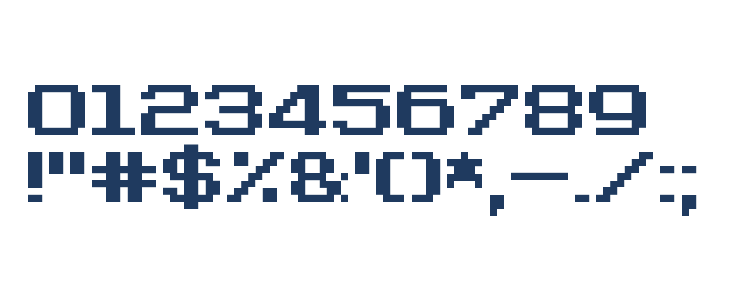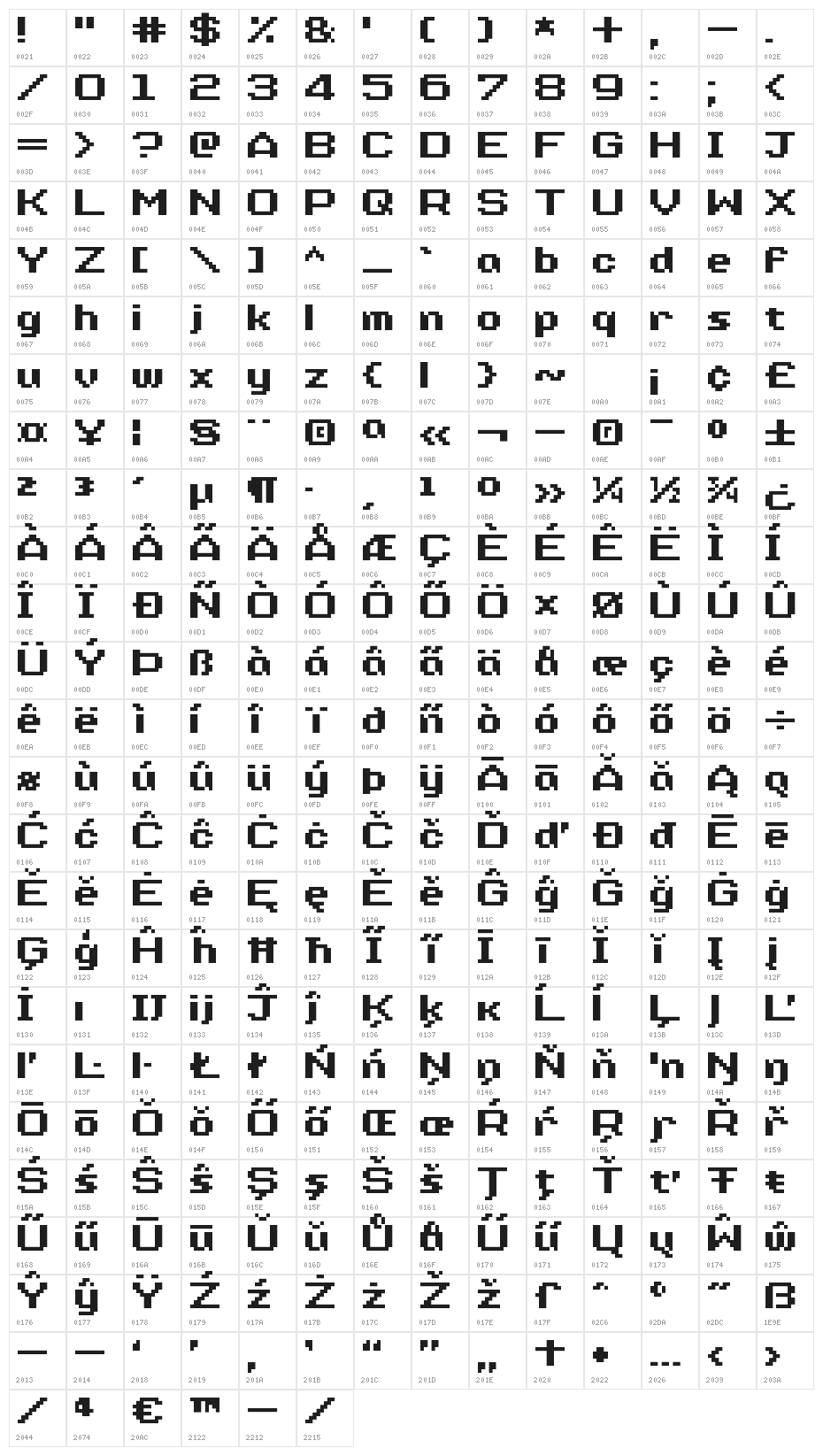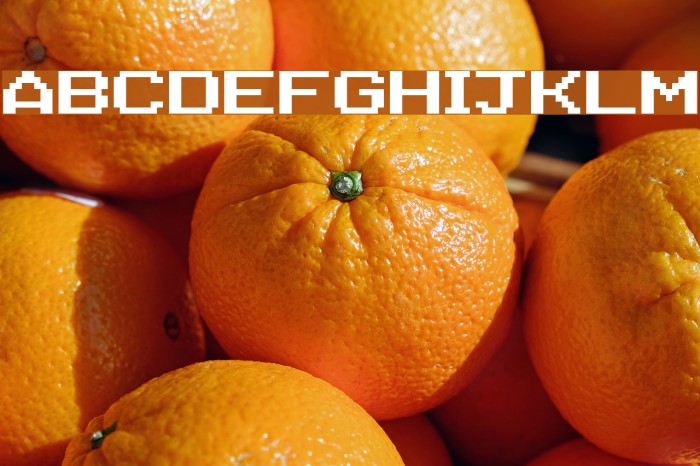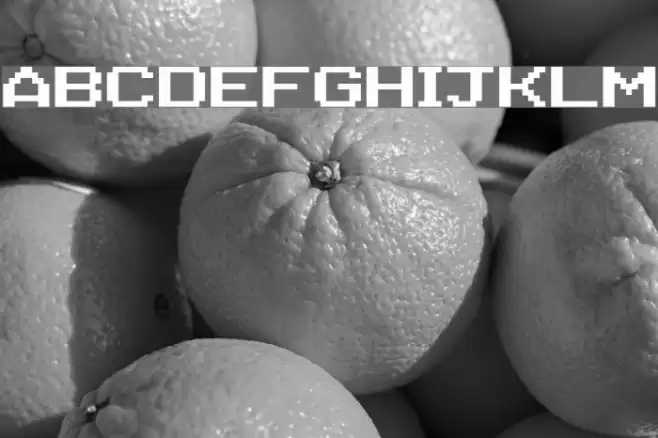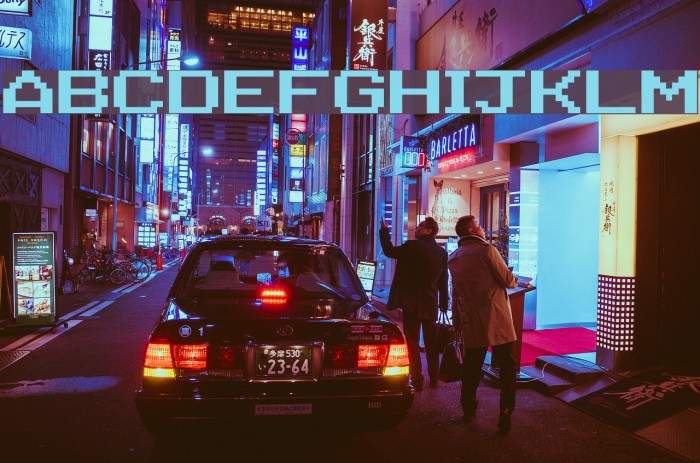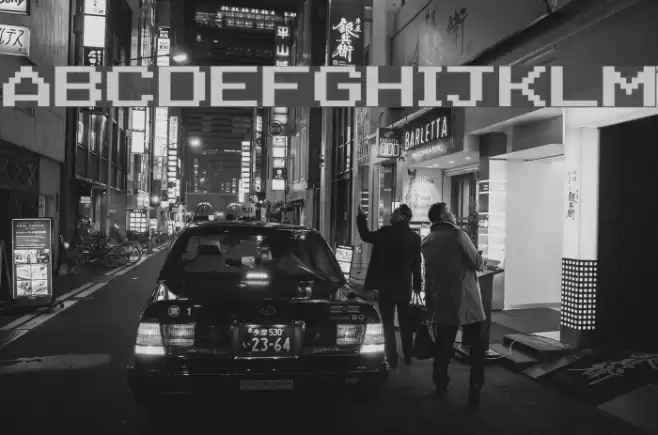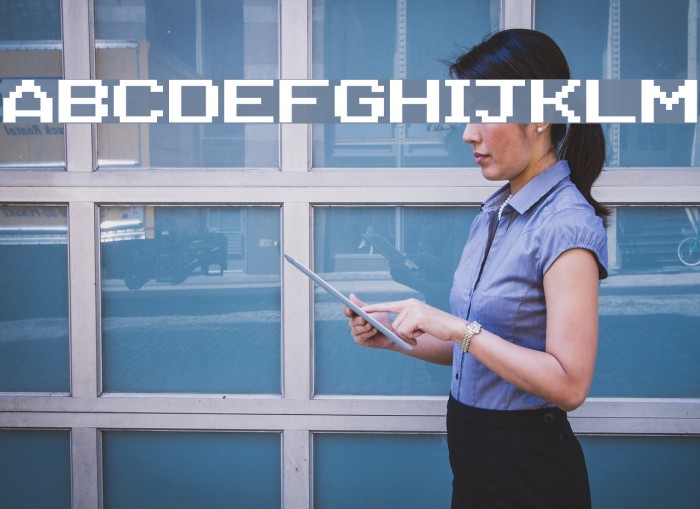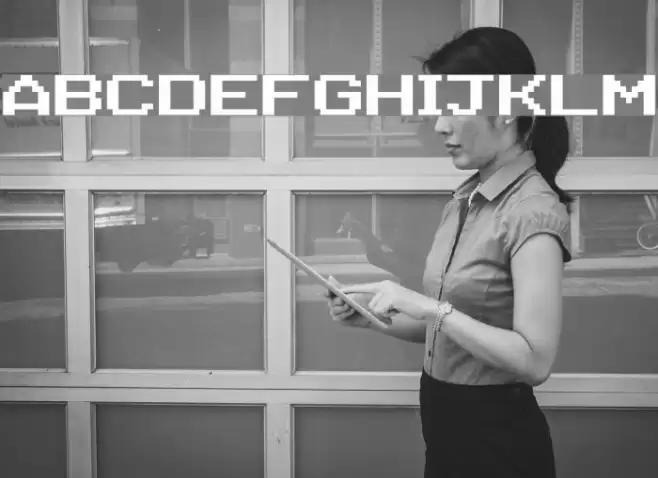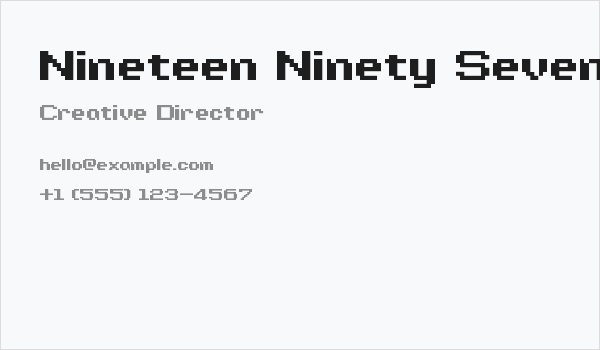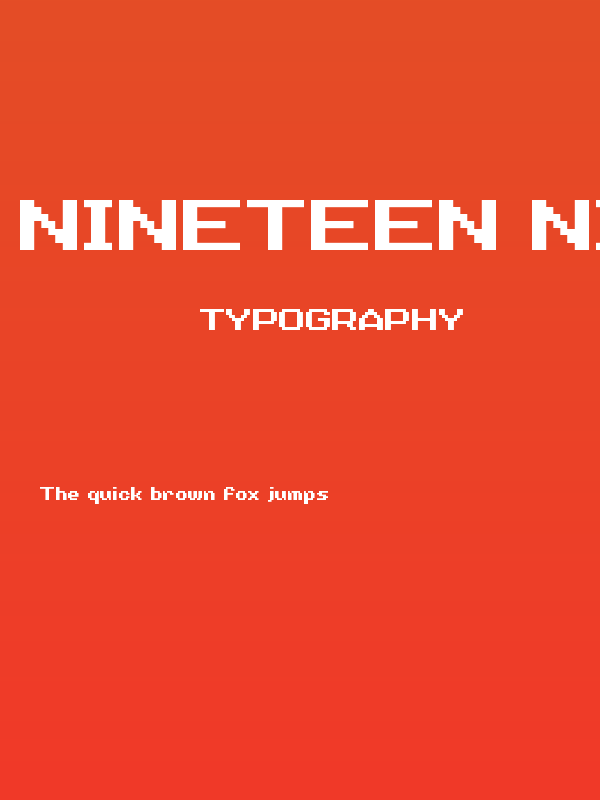
Nineteen Ninety Seven Font
Nineteen Ninety Seven Description
This font features a bold, pixelated style reminiscent of early digital displays and retro video games. Each character is constructed with a blocky, grid-like appearance, giving it a distinctly digital and vintage feel. The uppercase and lowercase letters maintain a consistent height, contributing to a uniform look. The numbers and special characters follow the same pixelated design, ensuring cohesion across all glyphs. This font's nostalgic aesthetic is perfect for projects that aim to evoke a sense of the 1980s or 1990s digital era.
| Proposed Projects | Ideal for retro-themed designs, video game graphics, digital art projects, and nostalgic branding. |